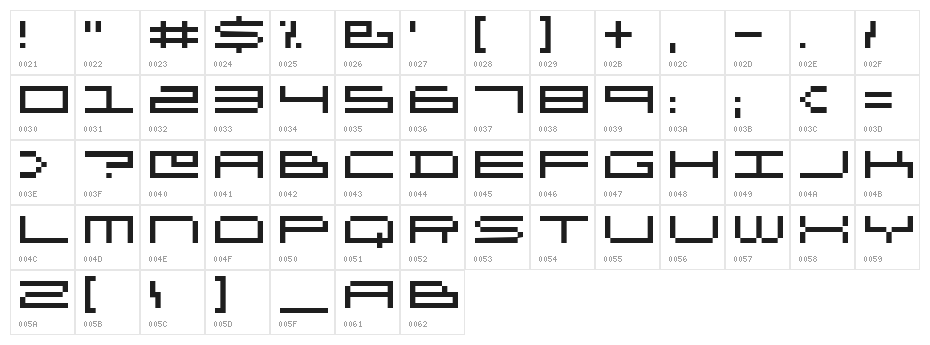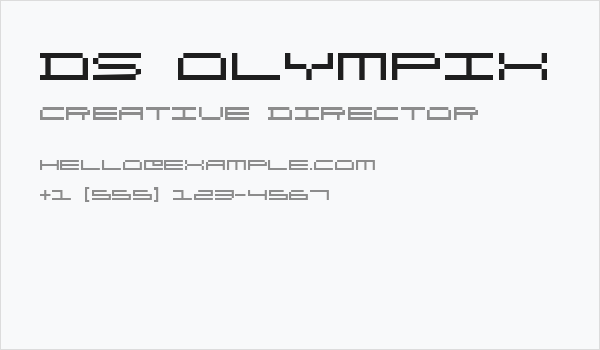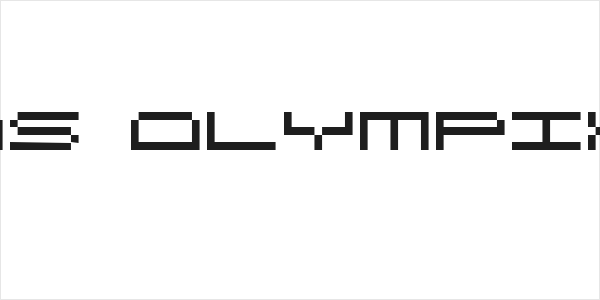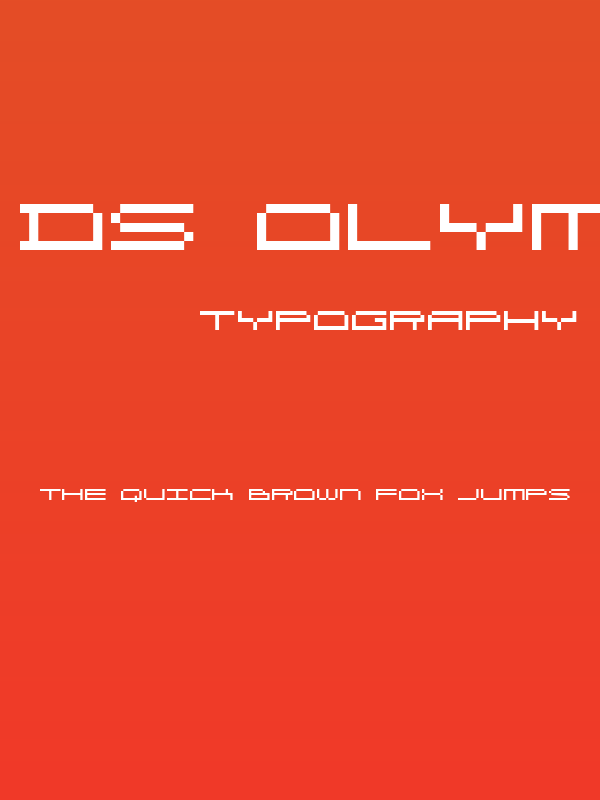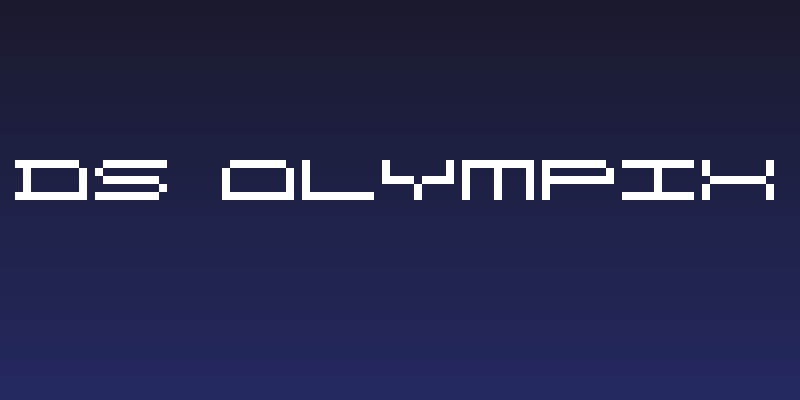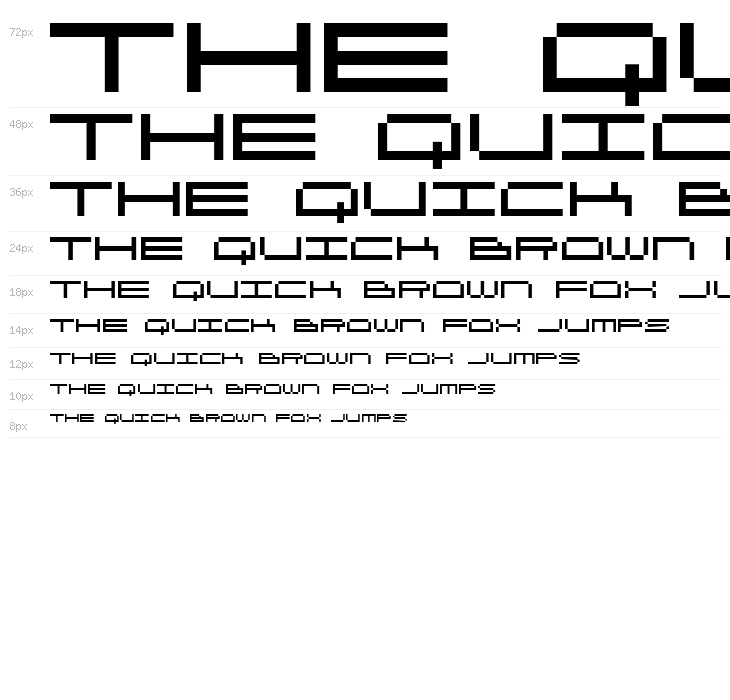
DS OlymPix Font
DS OlymPix Description
This font features a geometric and futuristic design, characterized by its blocky and pixelated appearance. Each character is constructed with a consistent grid-like pattern, giving it a digital and modern feel. The uppercase and lowercase letters maintain a uniform height, contributing to its monospaced style. The numbers and special characters follow the same design principles, ensuring a cohesive look across all glyphs. The font's sharp angles and straight lines make it highly legible, even at smaller sizes, while its unique style adds a distinctive touch to any project.
| Use Case | Headlines, Logos, Digital interfaces |
| Proposed Projects | Ideal for video game design, tech branding, digital art projects, and futuristic-themed posters. |